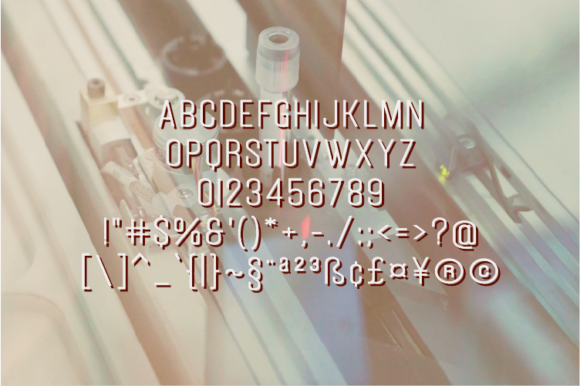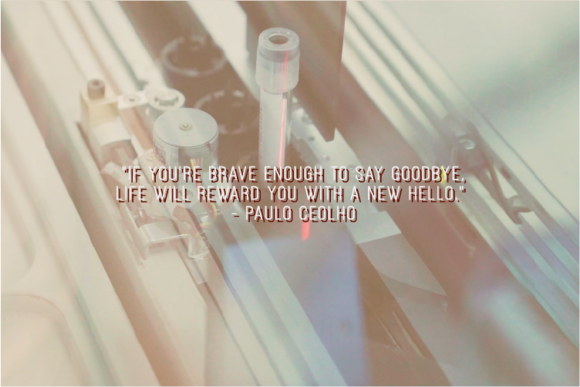
Introduction to Lotspote Font
Have you ever stared at a blank canvas, wondering where to start on your next creative project? We’ve all been there. But what if you had the perfect tool to spark your imagination? Enter the Lotspote Font, a stunning sans serif font designed to elevate your designs and bring your ideas to life.
As a valuable resource for designers, the Lotspote Font is more than just a pretty face. Its clean lines, tall stature, and versatility make it a go-to choice for creating beautiful headings, invitations, logos, and so much more. With a transparent background and high-quality design, this font is perfect for designers who want to add a touch of sophistication to their work.
Key Features of Lotspote Font
- Comes in 4 font styles: Regular, Bold, Italic, and Bold Italic, each with a unique and modern aesthetic.
- Lotspote Font supports a wide range of languages, making it suitable for international projects.
- Lotspote Font is designed to be highly legible, with clear and crisp typography, making it perfect for headings and titles.
Honest Review: Lotspote Font
As a designer, I’m always on the lookout for high-quality design resources to elevate my creative projects. Recently, I had the chance to try out the Lotspote Font, and I’m excited to share my thoughts on this font.
- ✨ Unique and playful design: The Lotspote Font has a distinctive and modern feel that can add a lot of character to any project.
- ✨ High-quality glyphs: The font has a wide range of glyphs, including Latin and Cyrillic scripts, which makes it a great option for designers working on international projects.
- ✨ Transparent background: The font’s transparent background makes it easy to use on any background, giving designers more flexibility in their designs.
- ⚠️ Limited font weights: The Lotspote Font only comes in a few font weights, which may limit its use in projects that require a wide range of weights.
Overall, I’m impressed with the Lotspote Font and its potential to add a touch of creativity to my designs. While it may have some limitations, I think it’s a great option for designers who want a high-quality, unique font for their projects.
The Lotspote Font is ideal for creative projects that require a unique and eye-catching design. Use it for branding materials, social media graphics, or website design elements. The font’s high-quality design makes it perfect for projects that demand a professional look.